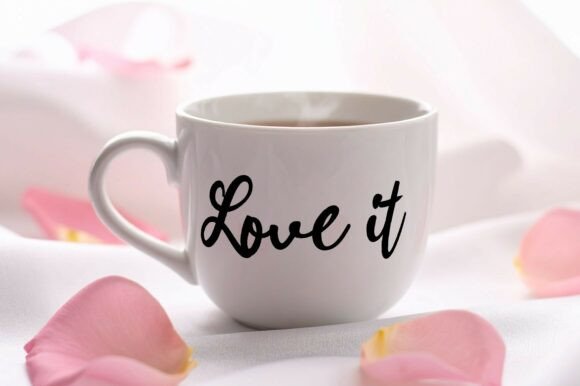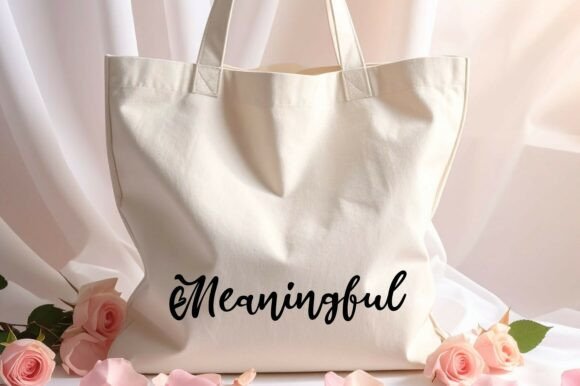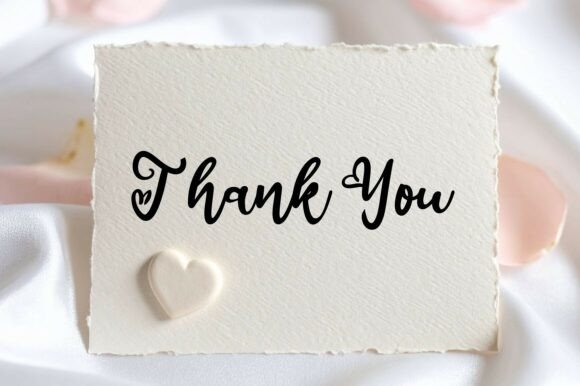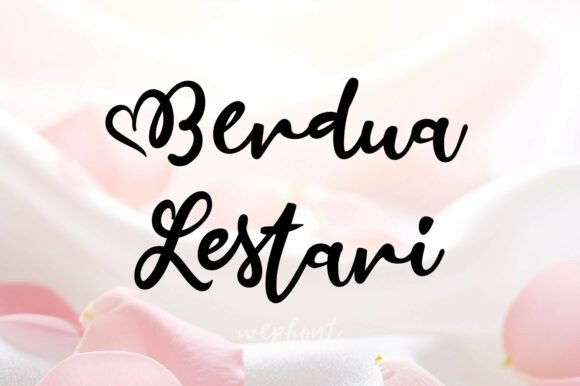
Discover the Elegance of Bendua Lestari Font: A Script Typeface of Sophistication and Romance
In the world of typography, few fonts manage to capture the essence of elegance, prestige, and romance as effectively as the Bendua Lestari font. This exemplary script typeface is designed to transcend the ordinary realm of fonts, serving as a vessel of grace and sophistication that can elevate any design project. With its characteristically intertwined letters, intricate details, and elaborate flourishes, Bendua Lestari pulsates with a sense of natural romance that is both eternal and profoundly engaging.
The Beauty of Bendua Lestari: A Closer Look
One of the defining features of the Bendua Lestari font is its beautifully crafted letters, which bear intricate details and elaborate flourishes that echo a kind of beauty that is not only timeless but also captivating. The font’s design is characterized by its intertwined letters, which create a sense of fluidity and continuity that is perfect for conveying emotions and telling stories. Whether you’re looking to create wedding invitations, celebration cards, or personal proclamations, Bendua Lestari is the ideal choice for expressing love, warmth, and closeness.
A Font for Every Occasion
The versatility of the Bendua Lestari font makes it an excellent choice for a wide range of design projects. Its elegant and sophisticated design makes it perfect for:
- Wedding invitations and celebration cards
- Personal proclamations and love letters
- Mugs and tote bags
- Any design project that requires a touch of elegance and romance
Features of Bendua Lestari Font
The Bendua Lestari font comes complete with a full range of standard punctuation, meticulously crafted to enhance the elegance of your text. Some of the key features of this font include:
- PUA encoding for easy access to special characters and decorative elements
- Intricate details and elaborate flourishes for added elegance
- Intertwined letters for a sense of fluidity and continuity
- Standard punctuation for versatility
Why Choose Bendua Lestari Font?
There are many reasons why designers and crafters choose the Bendua Lestari font for their projects. Some of the benefits of using this font include:
- Its elegant and sophisticated design
- Its versatility and range of uses
- Its ability to convey emotions and tell stories
- Its handcrafted aura that adds a personal touch to any design
Tips for Using Bendua Lestari Font
To get the most out of the Bendua Lestari font, here are a few tips to keep in mind:
- Use it for headlines and titles to add a touch of elegance
- Pair it with simpler fonts for body text to create contrast
In conclusion, the Bendua Lestari font is a script typeface that truly transcends the ordinary realm of fonts. With its elegant and sophisticated design, intricate details, and elaborate flourishes, it is the perfect choice for designers and crafters looking to add a touch of romance and elegance to their projects. Whether you’re creating wedding invitations, celebration cards, or personal proclamations, Bendua Lestari is the ideal font for conveying love, warmth, and closeness. So why wait? Download Bendua Lestari font today and discover the beauty and elegance it can bring to your designs!